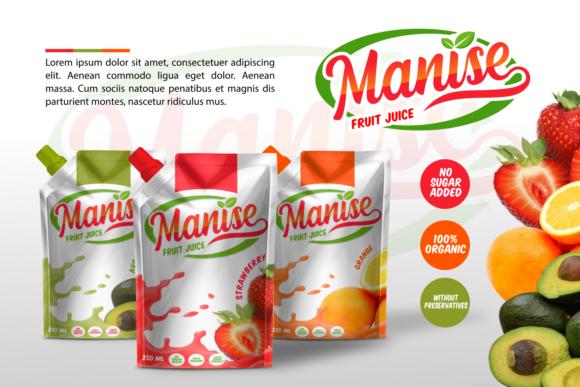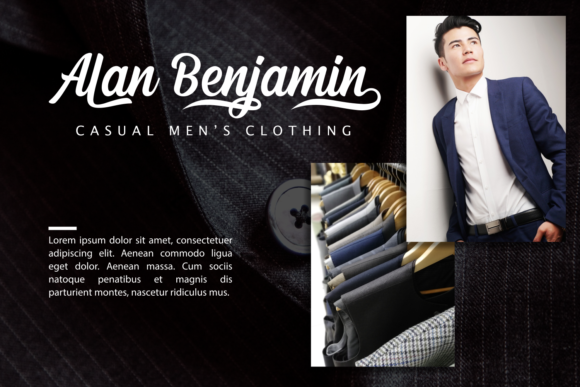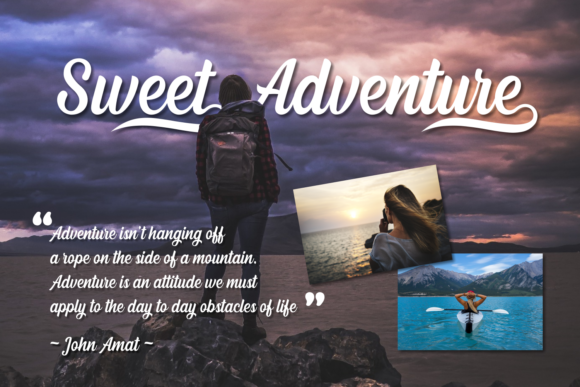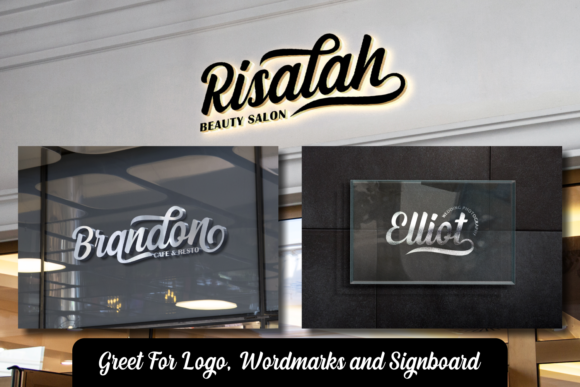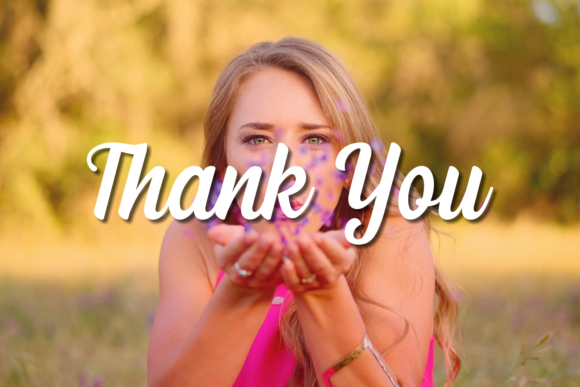
Dephiana Font
About Dephiana Font
Dephiana is an elegant and striking handwritten font with lovely swashes. Use it to add a romantic twist to any design project.